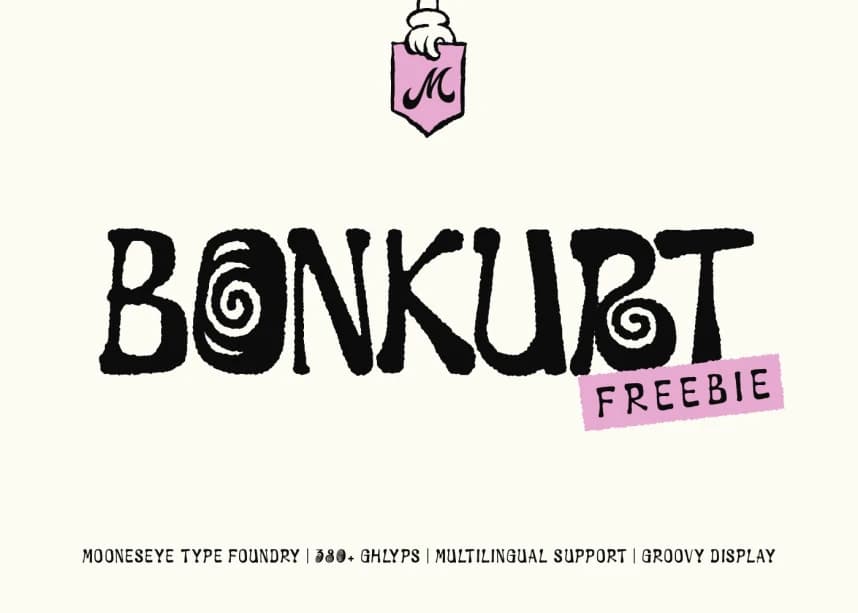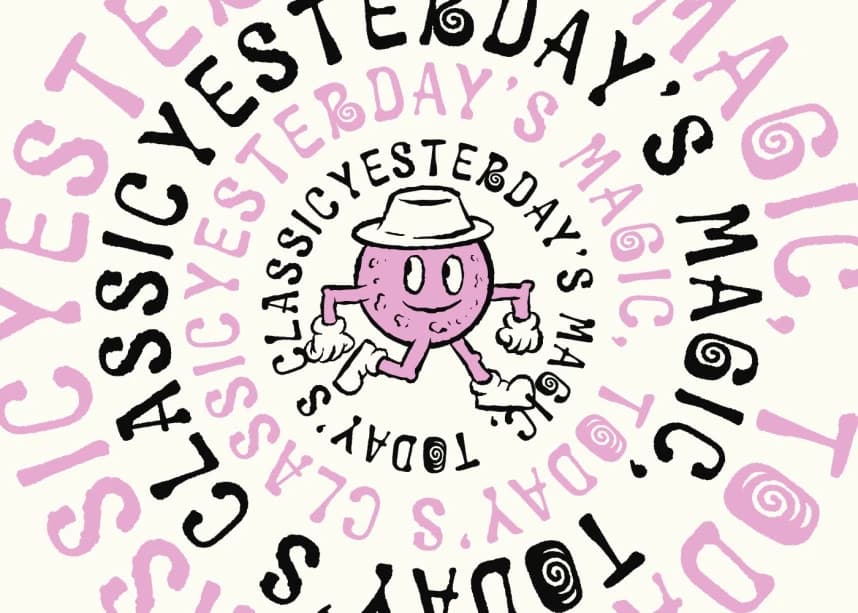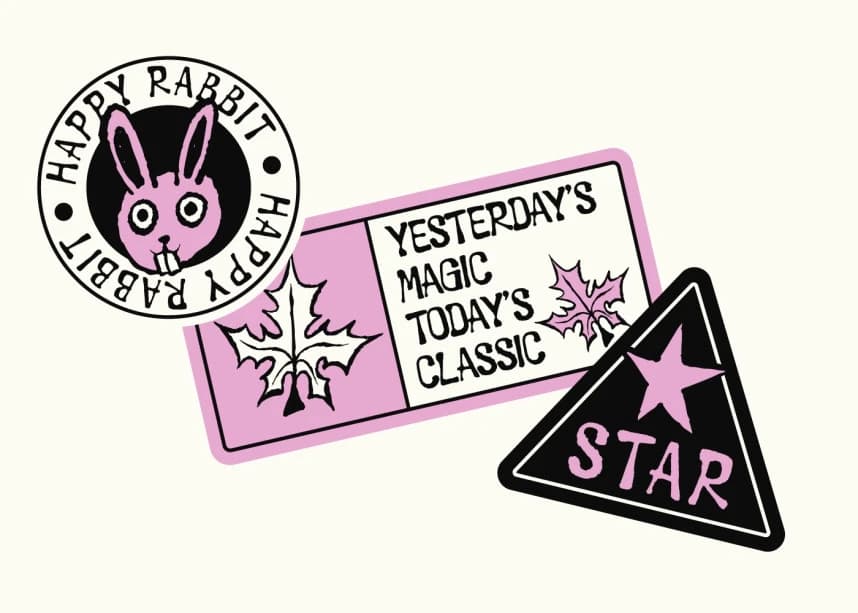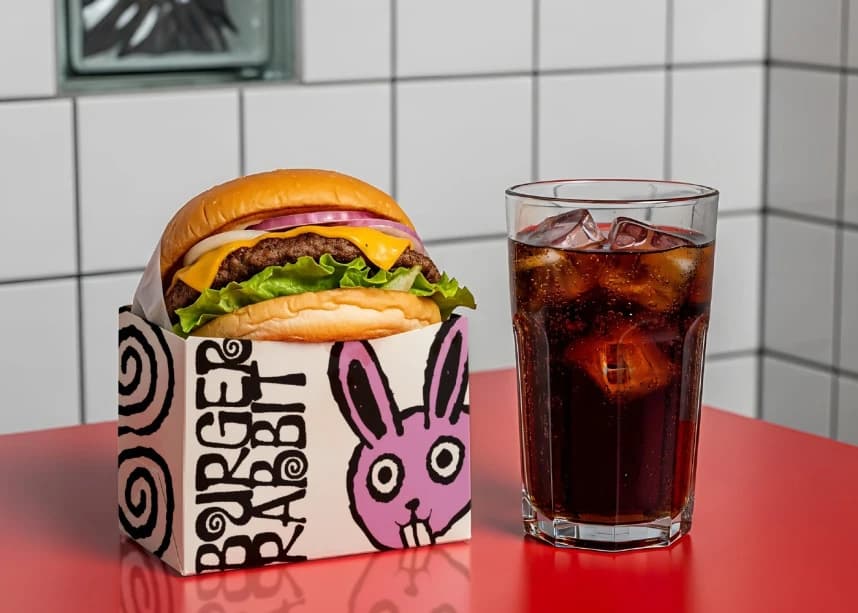
Bonkurt Font
Bonkurt Font is a high-energy "Groovy Display" font that bridges the gap between 1930s rubber-hose animation and 1970s psychedelic gig posters. Its most striking feature is the spiral "dizzy" counterforms hidden within the letters